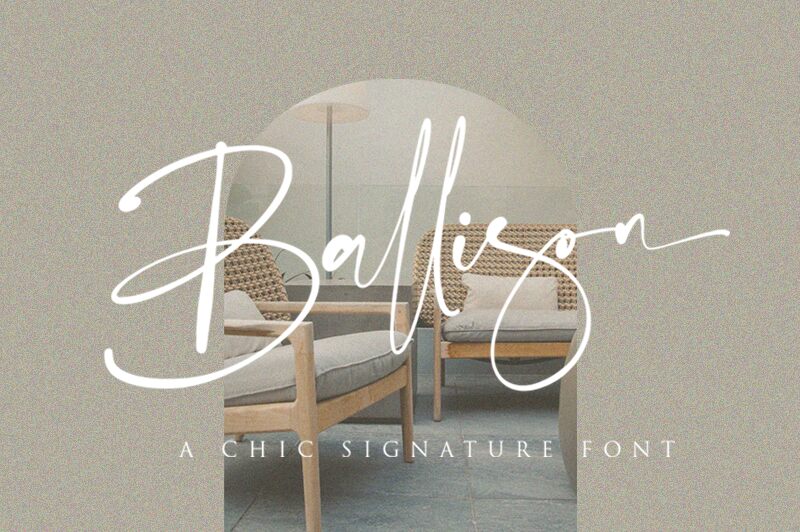
Ballison font is a free handwritten typeface by Vultype with a flowing and elegant style. Its sophisticated and chic appearance makes it look fashionable and expressive; perfectly in-line with the latest design trends. With naturally irregular strokes differentiating it from digital calligraphy and modern serif fonts, this handwritten font looks personal, natural, and stylish.
With all that being said, the typeface is great for all casual and formal projects that need a human touch. It can be used for branding, advertising, fashion, social media, thrilling blogs, magazines, books, ads, and personal use products.